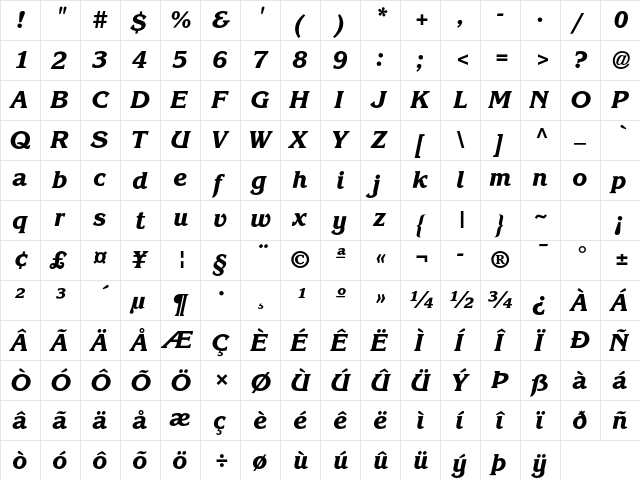
ITC Korinna Std Extra Bold Kur
| Designer | Edward Benguiat / Victor Caruso |
Design Context for ITC Korinna Std Typeface
ITC Korinna Std offers clean, dependable letterforms without strong stylistic allegiance, making it a practical choice for designers who need flexibility. The heavy weight commands attention and anchors typographic hierarchies.